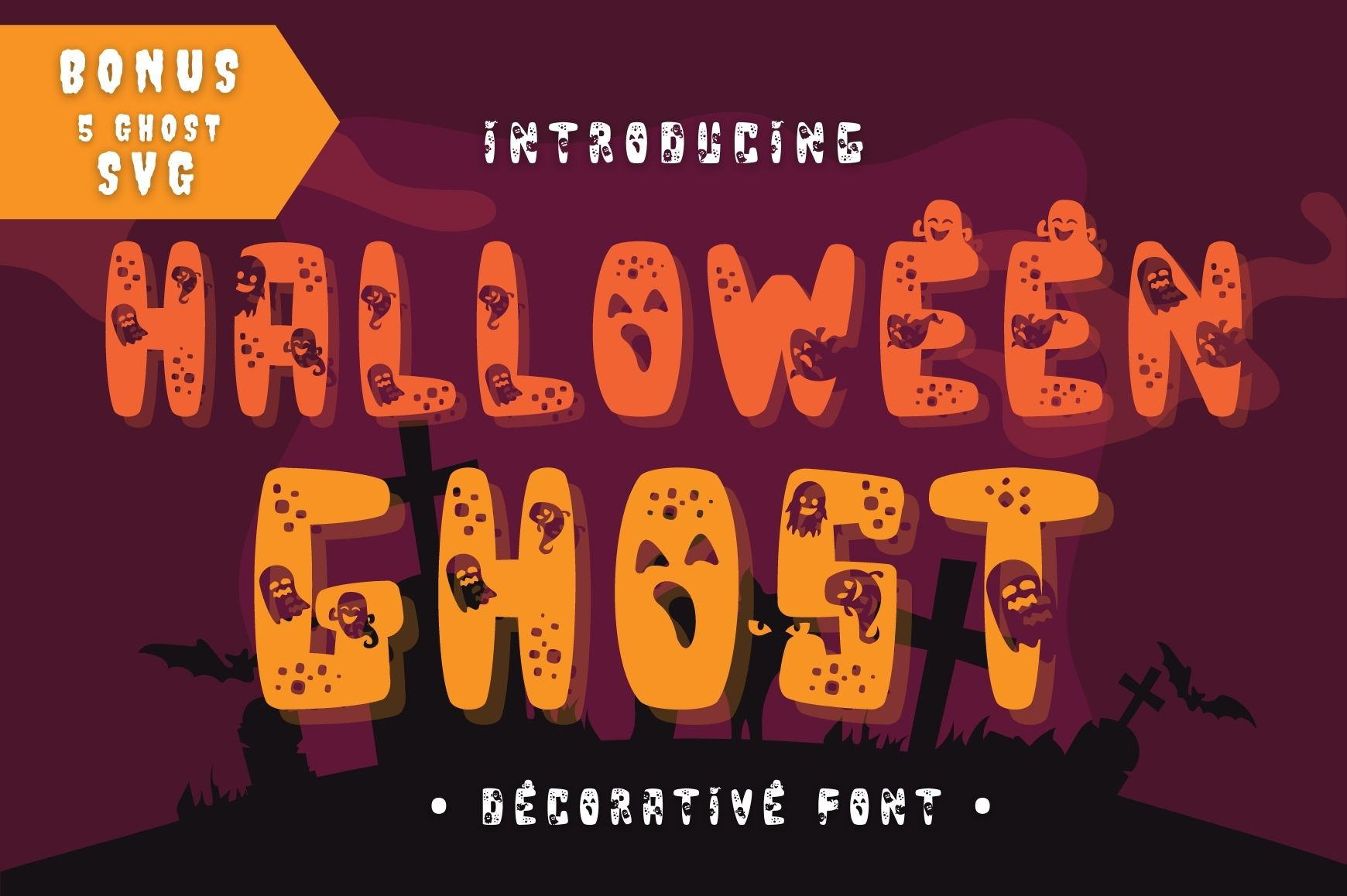
Halloween Ghost - Decorative font
Halloween Ghost is a scary and fun decorative font. It embodies playfulness and authenticity and is the perfect choice for all your favorite Halloween projects, or even for blog posts, logos, branding, ads, invitations, greeting cards, planners, photo albums, decorations, and much more. Add it to any of your designs, and enjoy the results!